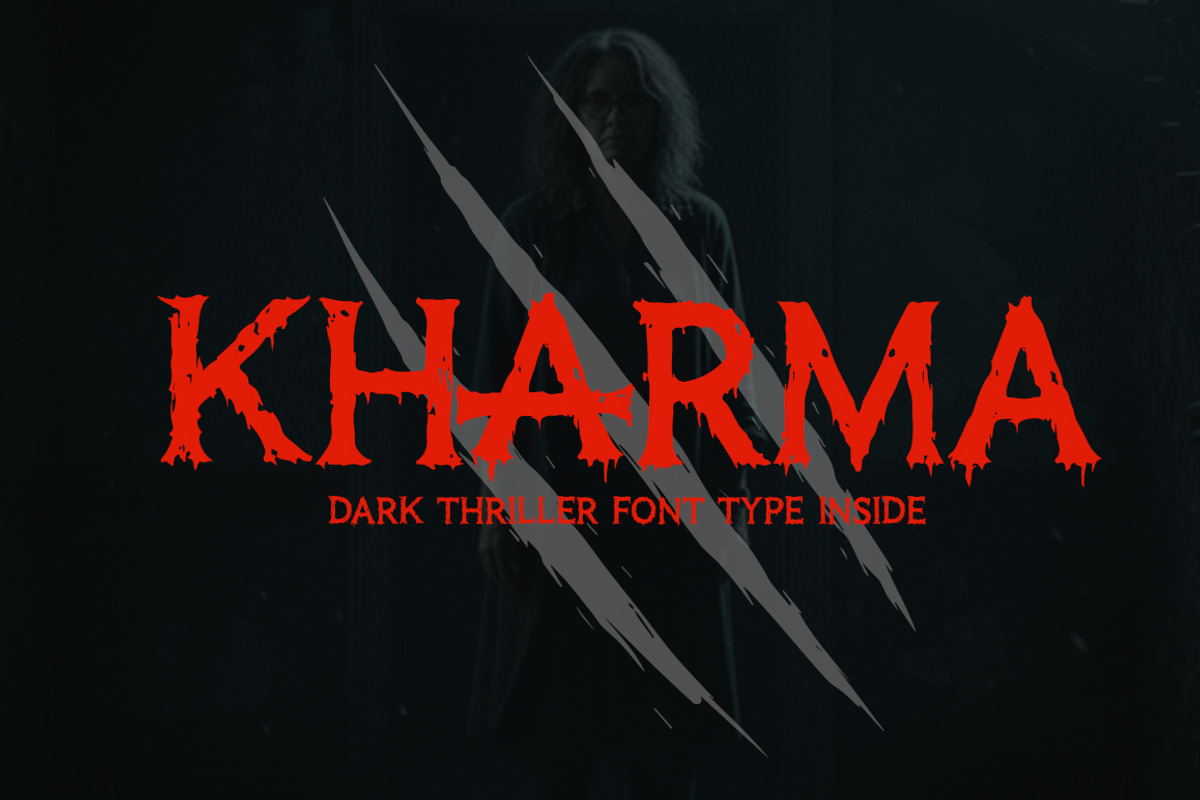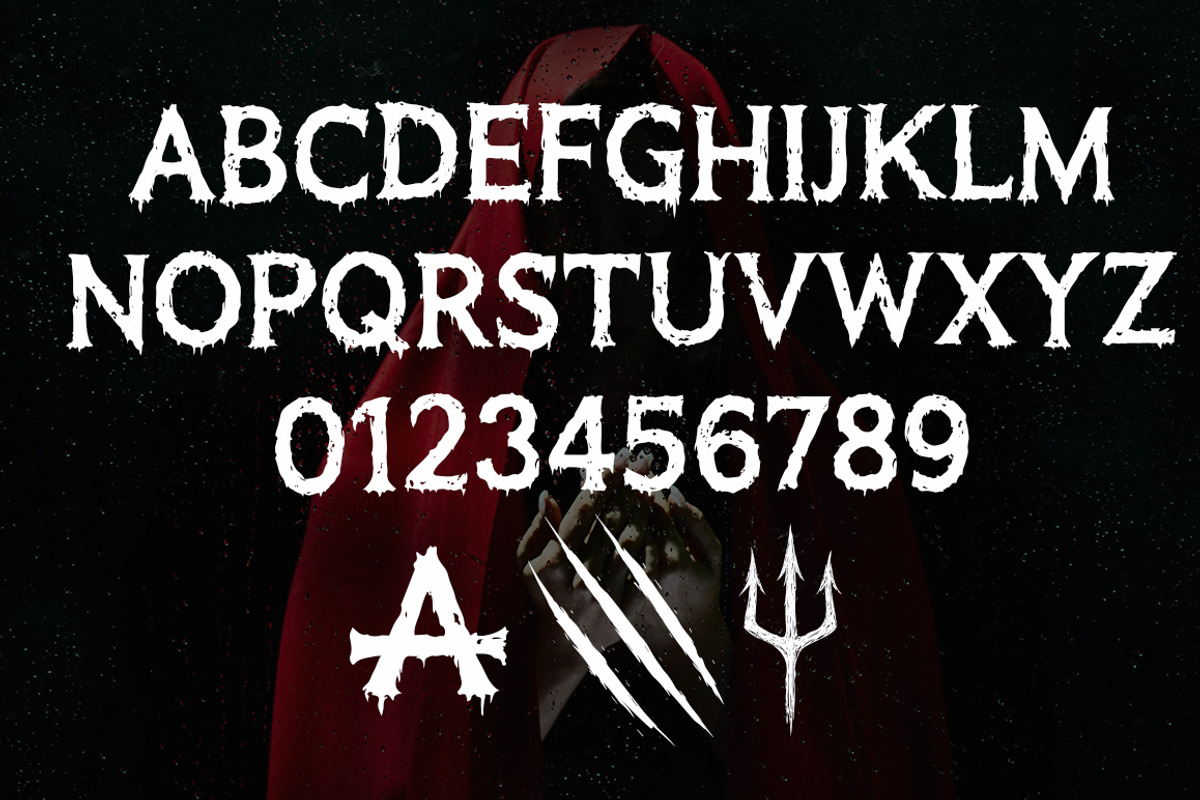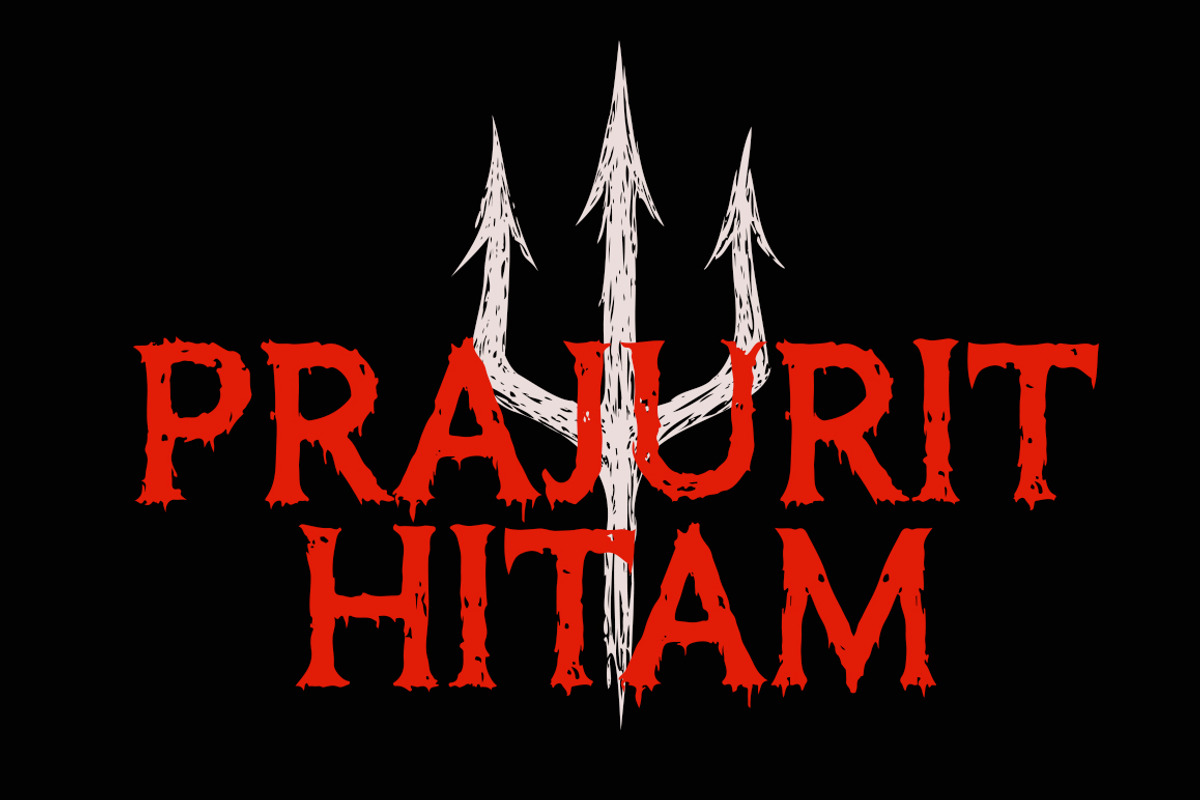
Kharma
Kharma is a chilling horror-themed font that blends eerie elegance with raw intensity. Its jagged edges, uneven strokes, and distressed textures evoke the feeling of ancient curses, haunted shadows, and supernatural forces. Designed to strike fear and fascination at the same time, Kharma captures the essence of darkness while maintaining readability. Perfect for horror movie posters, gothic book covers, eerie game titles, and other sinister designs, this font embodies a haunting presence that lingers in the viewer’s mind.